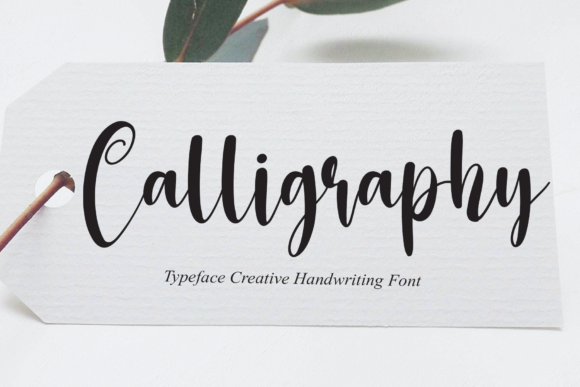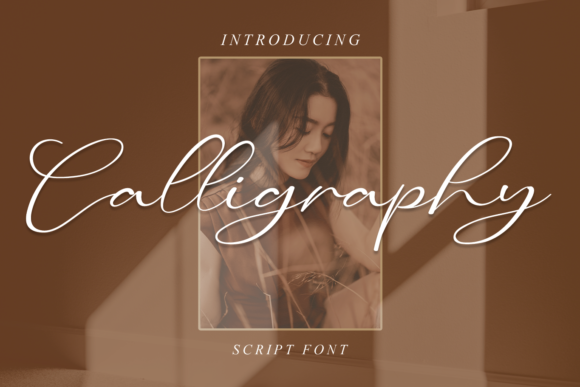
The Art of Elegant Typography: Unlocking the Power of Calligraphy Font
Have you ever sat down with a blank sheet of paper, a pen, and a dash of creativity, only to find yourself lost in the process of crafting the perfect handwritten script? That’s exactly what happened to me, and it’s a moment I still cherish to this day. The freedom to express myself through the curves and lines of a handwritten font was exhilarating, and it’s a feeling that many designers can relate to.
That’s where Calligraphy Font comes in – a beautiful and timeless handwritten font that’s perfect for adding a touch of elegance to your designs. Whether you’re creating eye-catching logos, branding, or quotes, Calligraphy Font is the perfect choice to bring your vision to life. Its unique and beautiful touch will make your design stand out, and that’s exactly why it’s a valuable asset for designers.
Calligraphy Font Key Features
• Font Styles: Available in various styles such as Copperplate, Spencerian, and Brush Script, each with its unique characteristics.
• Unique Characteristics: Distinctive flourishes, swashes, and ligatures that evoke a sense of elegance and sophistication.
Calligraphy Font Review
Overall, I’d say the Calligraphy Font is a decent choice for those looking to add a touch of elegance to their designs. ✨ The font’s unique, flowing script style makes it perfect for invitations, wedding cards, and other special occasions. It’s also great for creating a whimsical, vintage vibe in logos, headings, and other text-based elements.
Here are some specific things that work well:
• ✨ Elegant, cursive script style that’s perfect for special occasions
• ✨ Wide range of font sizes and styles to choose from
• ✨ Works well with both light and dark backgrounds
• ⚠️ Limited flexibility in terms of customization
• ⚠️ May not be the best choice for large blocks of text, as it can become overwhelming
• ⚠️ May not be suitable for digital displays, as it can be difficult to read at small sizes
Overall, I’d give the Calligraphy Font 3.5 out of 5 stars. While it’s a beautiful font with a lot of potential, it’s not without its limitations. If you’re looking for a font that’s perfect for special occasions and want a unique, elegant style, the Calligraphy Font may be worth considering. However, if you need a font that’s highly customizable or suitable for large blocks of text, you may want to look elsewhere.
Calligraphy fonts are perfect for:
• Wedding invitations and stationery
• Special occasion cards and gifts
• Business branding and marketing materials
• Artistic
Alternatives to Calligraphy Font for Designers
Lobster Font is a fun, casual script font that’s perfect for adding a touch of elegance to your designs. It’s ideal for use in titles, headings, and other text elements where you want to convey a sense of sophistication. Compared to Calligraphy Font, Lobster is more modern and less traditional in its design.
Crimson Text is a serif font that’s designed to evoke the feeling of classic calligraphy. It’s a great choice for body text, as it’s highly legible and easy to read. Compared to Calligraphy Font, Crimson Text is more formal and less ornate in its design.